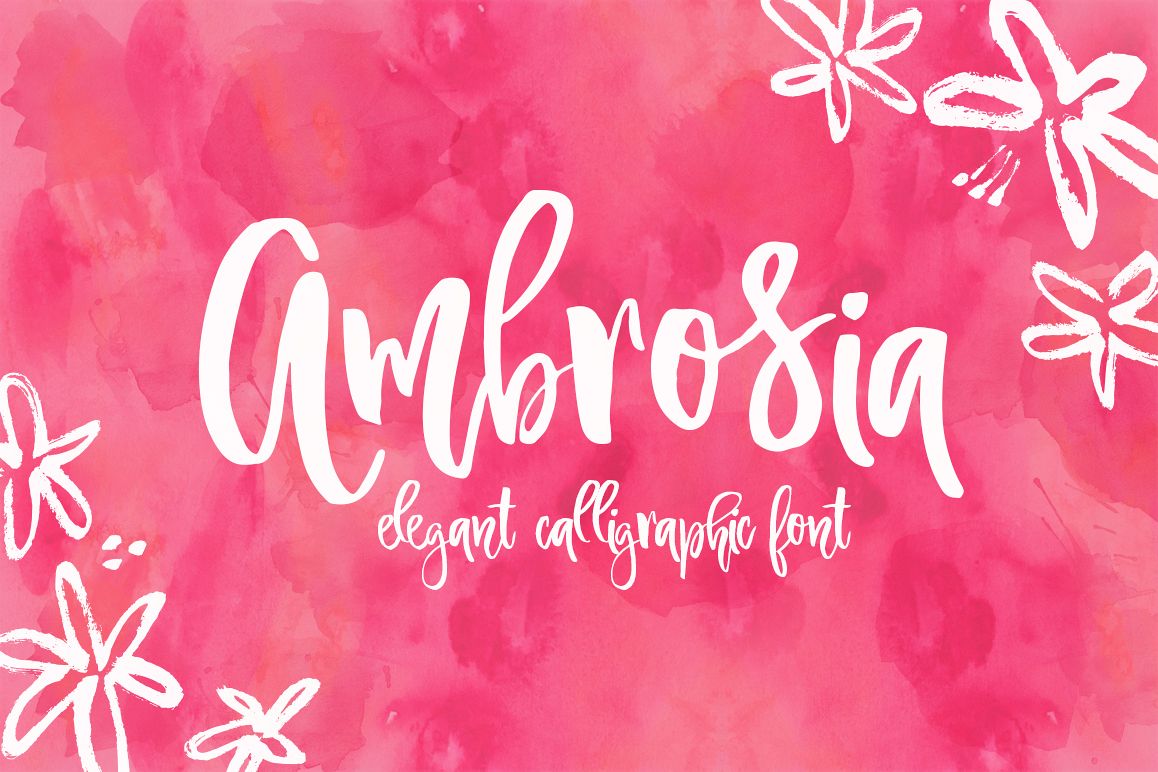
Ambrosia Script
Ambrosia-Regular
I'm pleased to introduce you my new font - Ambrosia.Ambrosia is a hand-drawn calligraphic script with dancing baseline and authentic imperfections.With a very smooth and elegant yet clearly hand-drawn look Ambrosia is guaranteed to give your text a personal, custom-made feel. This font would be perfect for invitations (including wedding cards!), branding, logo design, print, t-shirt design and so much more!Ambrosia includes uppercase and lowercase letters as well as support for most western languages (if you won't find any specific glyphs that you need - please text me and I’ll try to add them).
Open type features include ligatures and some contextual alternatives (initial and final glyphs). If you have any question, don't hesitate to contact me by email.